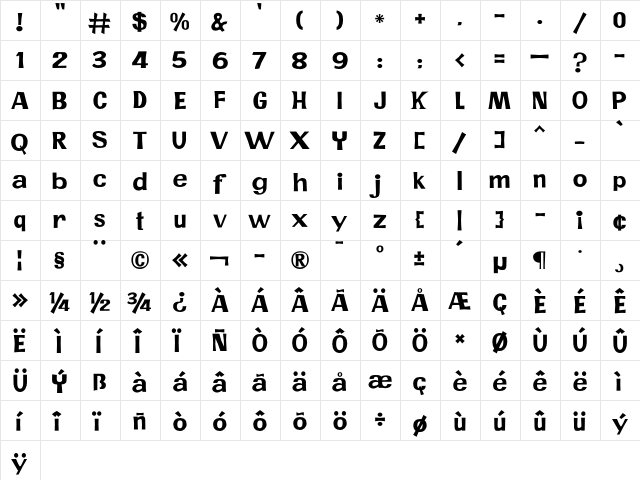
JMH PR Regular Font Preview
JMH PR Regular
JMH PR Regular Font Details
Design Context for JMH PR Typeface
JMH PR offers clean, dependable letterforms without strong stylistic allegiance, making it a practical choice for designers who need flexibility.
Pro Tip: Use JMH PR in both headline and body roles to test its range before committing to a single application.